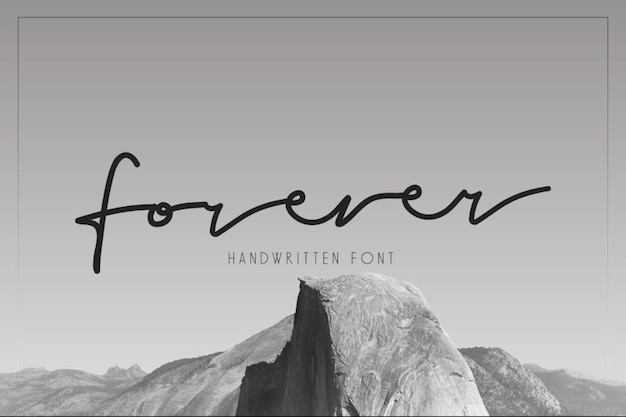
Forever Font
Drizy Studio
It's like your words took a stroll through a calligraphy garden! It's handwritten charm with a touch of grace, keeping it simple yet elegant. Each stroke flows effortlessly, giving your text this timeless beauty. It's like having a classic pen pal who writes in the most exquisite, yet easy-to-read style. Pure handwritten sophistication, keeping it classy without any fuss!